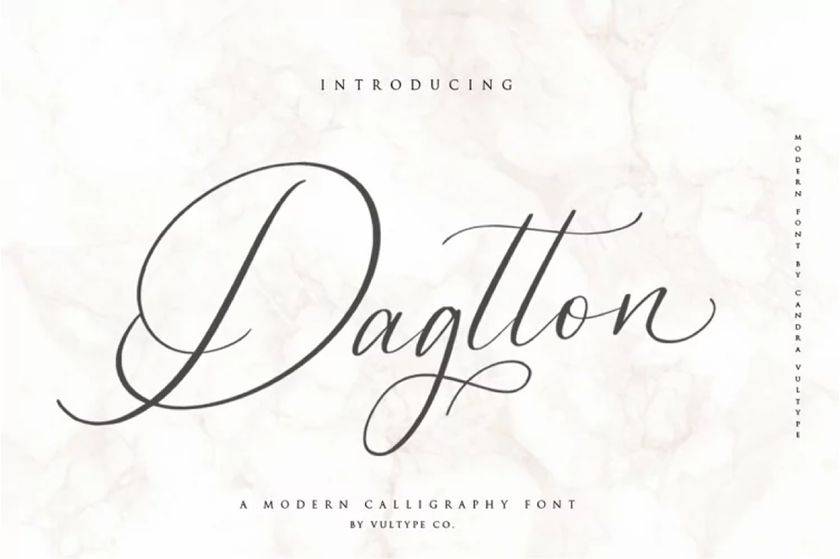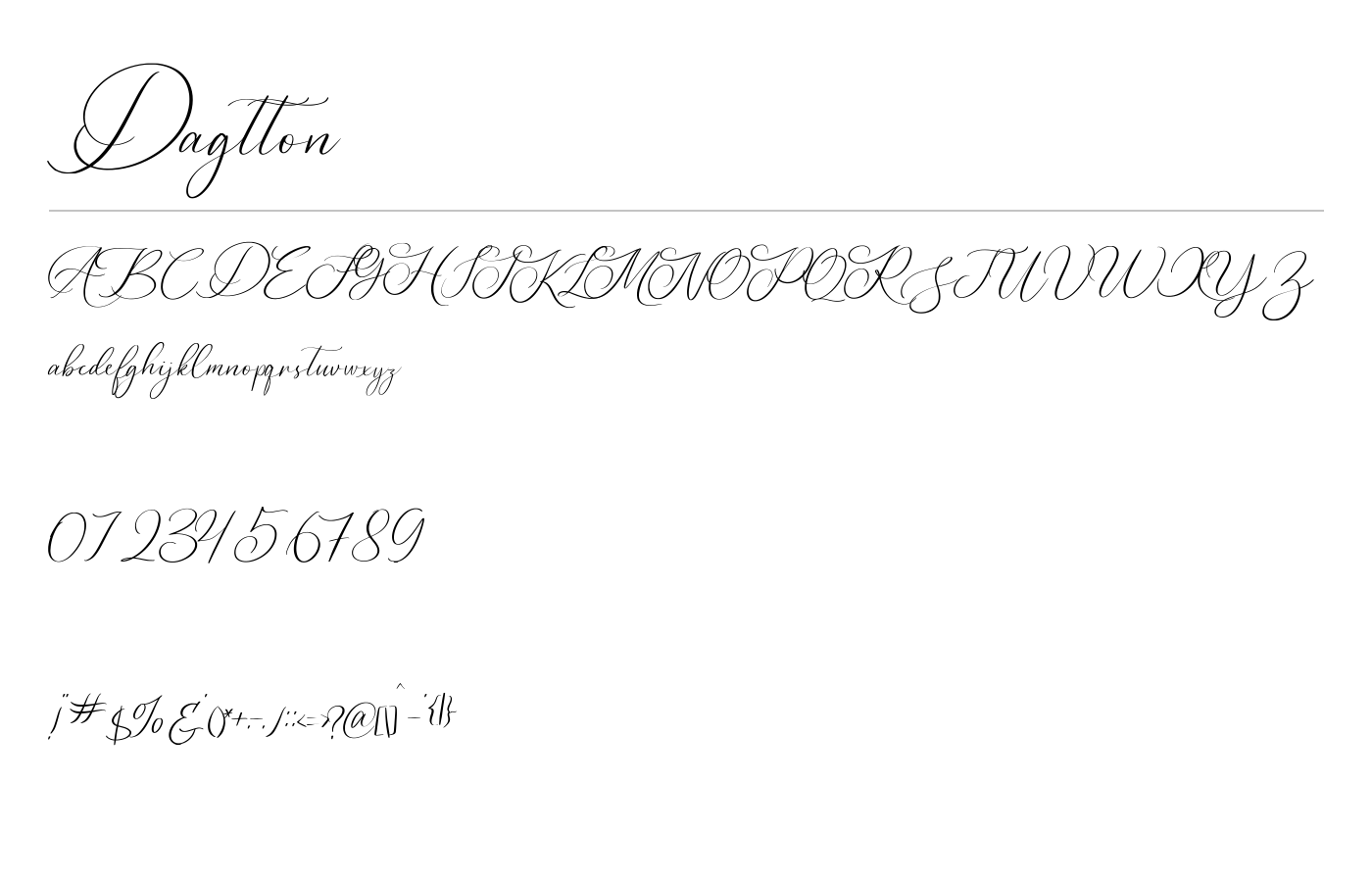
Dagtton is an elegant, delicate script font characterized by its fine, flowing strokes and sophisticated flourishes, giving it a graceful and luxurious feel. Its slender weight and high contrast between thick and thin lines make it ideal for upscale branding, wedding invitations, and stylish editorial headlines where a refined, romantic touch is desired. This font works best in large sizes to showcase its intricate details and enhance the sense of elegance and exclusivity.
Dagtton Font
About Dagtton Font
| Font family | Dagtton Font |
| Release date | 2020-07-31 |
| Designer | Vultype Co |